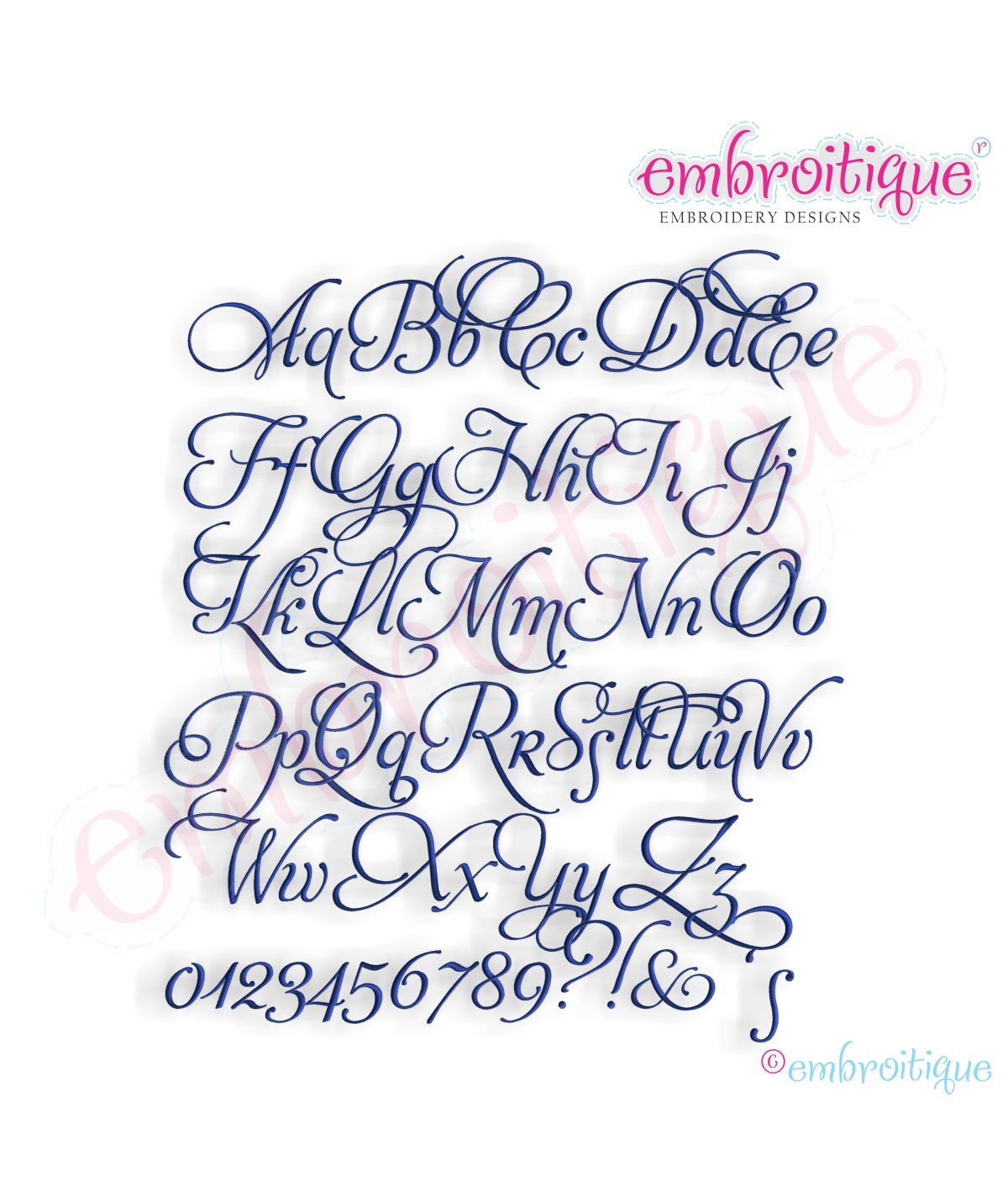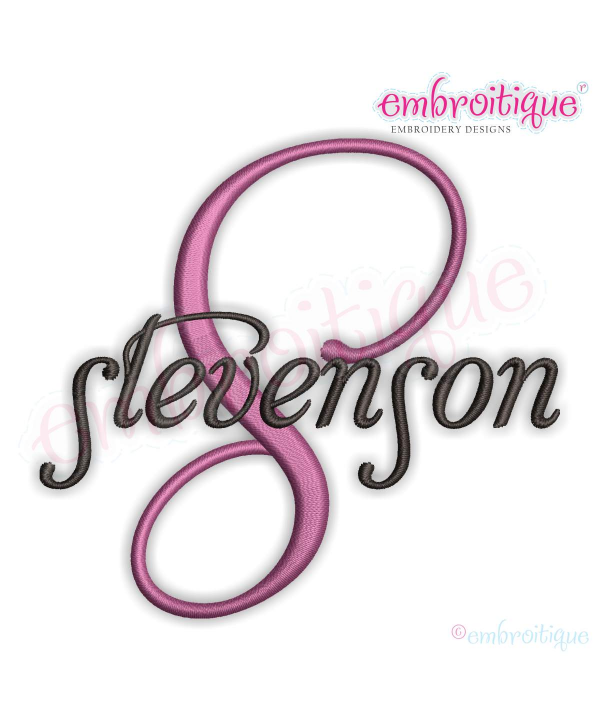
Stevenson Monogram Font Set - Small
This is such a gorgeous set! Â Perfect for wedding monograms - see the example photo we did! Â Each letter is an individual file that you can use to build monograms, names and sayings.